A 'joined' font may refer to a type of script typeface, where all characters of a word are connected by single lines. Most so-called 'handwriting' fonts make use of these glyphs. And some fonts, such as your example, may offer an additional isolated glyph version, like this font:
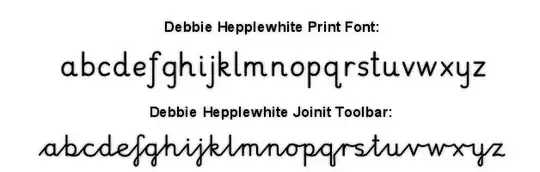
As the name 'script' implies, it is derived from handwriting, and can still generally be seen in writing exercises in primary schools.
Alternatively, those terms might be referring to fonts that offer versions with and without ligatures, the usually curvy lines that connect certain sets of characters:
In writing and typography, a ligature occurs where two or more
graphemes or letters are joined as a single glyph.
Like script typeface, ligatures derive from handwriting.
A famous common example is the ampersand &.